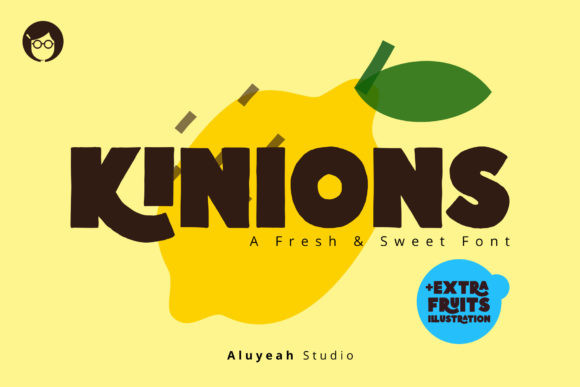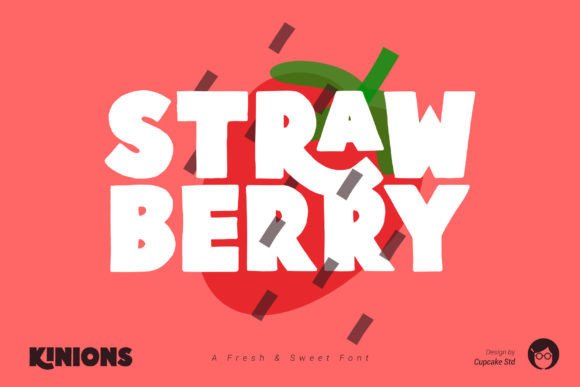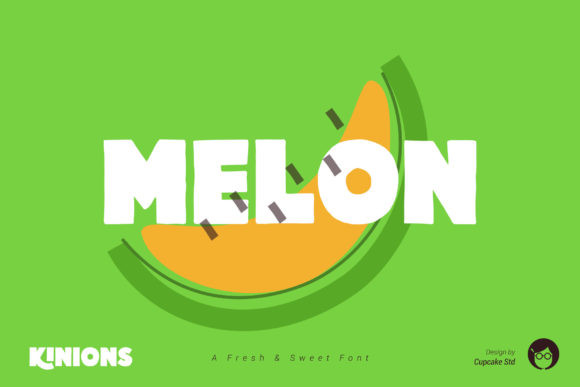
AL Kinions Font
AL Kinions is a unique and fresh display font. This sweet and friendly typeface will bring a friendly vibe to any crafting project. It’s perfect for packaging, branding, summer party greeting cards, kids projects and much more!